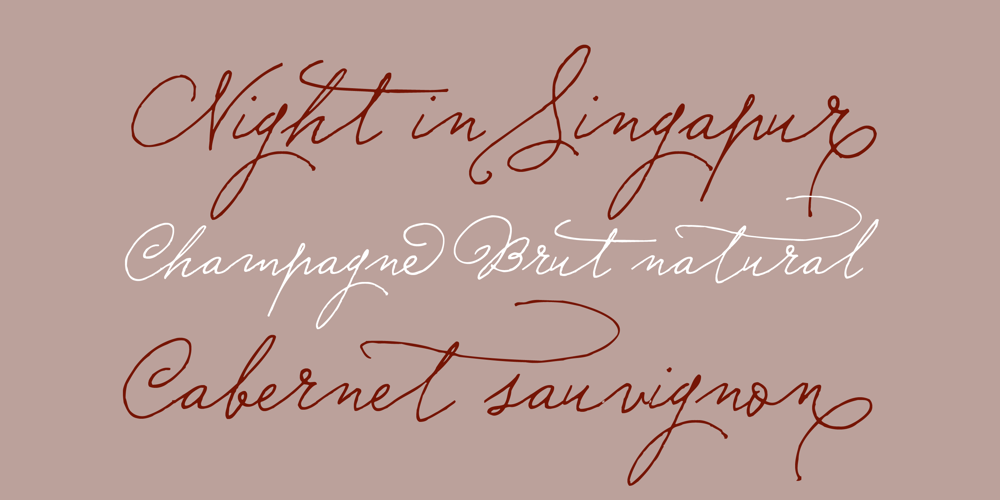
Sudestada
Sudestada font
Sudestada Font Family was designed by Alejandro Paul, Diego Giaccone and published by Sudtipos. Sudestada contains 1 styles and family package options. Sudestada is a typeface with distinctive handwritten style and personality. An alternate weight provides a large number of lowercase character variations and swashes for more realistic-looking handwritten text. The OpenType version features access to these stylistic alternates through standard typographic controls within certain applications.